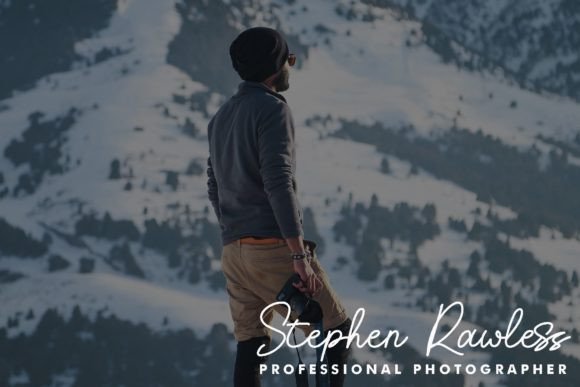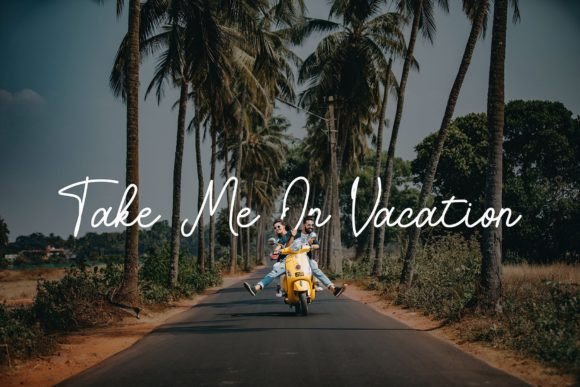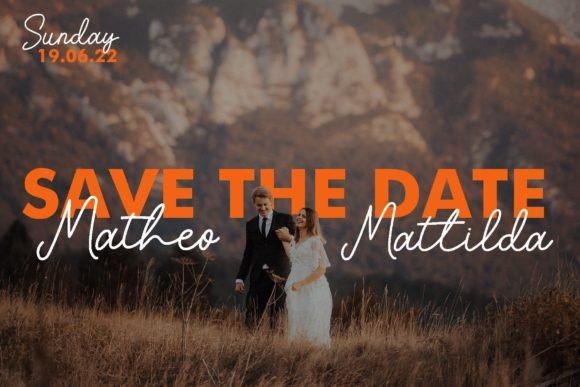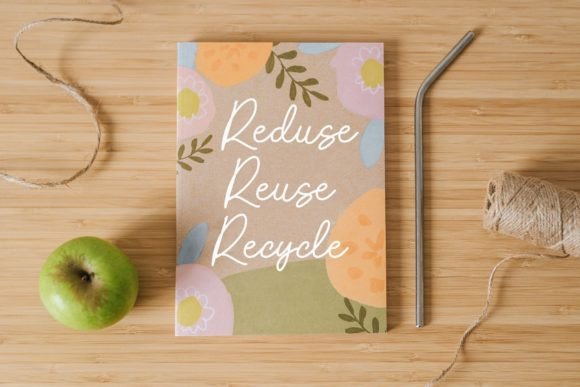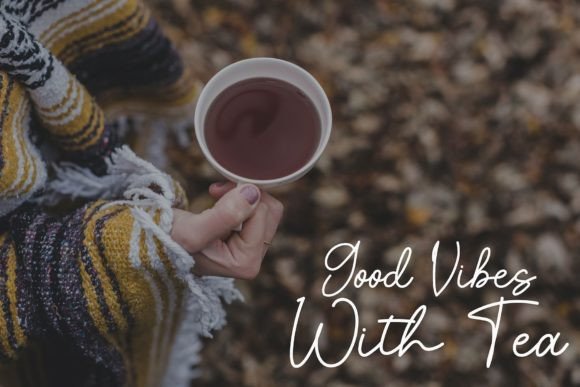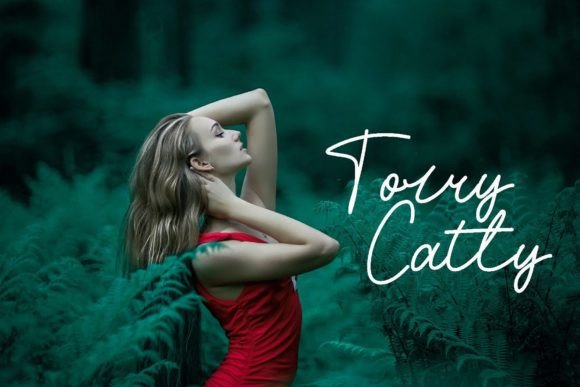
Introduction to Saint Roland Font
As a designer, there’s nothing quite like the rush of inspiration that comes when you stumble upon the perfect font for a creative project. The thrill of watching your ideas come to life, with every letter and line perfectly in place. It’s moments like these that make all the late nights and early mornings worth it. And today, we’re excited to introduce you to a game-changing design resource that’s sure to elevate your next project: the stunning Saint Roland Font.
With its modern and classy monoline handwritten style, the Saint Roland Font is the perfect addition to any design. Whether you’re working on branding projects, logos, wedding designs, or social media posts, this font is sure to bring a touch of elegance and sophistication to your work. And the best part? It’s available for free download, making it a valuable resource for designers of all levels.
Key Features of Saint Roland Font
- High-quality design resource with a unique, elegant style perfect for creative projects.
- Unique characteristics include a mix of modern and vintage elements, making it ideal for branding and packaging designs.
Honest Review: Saint Roland Font
I recently stumbled upon the Saint Roland Font, and I must say, it’s been a great addition to my design arsenal. This font is perfect for those looking to add a touch of elegance and sophistication to their creative project.
- High quality and crisp typography, making it ideal for various design applications
However, I do have a few caveats:
- ⚠️ Limited character set, which might be a concern for those who need a wide range of characters
- ⚠️ Not suitable for use as a body font, as it’s best suited for headlines and titles
Overall, I’m quite impressed with the Saint Roland Font. Its high quality and versatility make it a great design resource, especially for those looking to add a touch of sophistication to their creative project. With a little creativity, you can achieve some amazing results with this font.
For a high-quality design, use Saint Roland Font with a transparent background to create a clean and minimalist look. This font is ideal for creative projects, such as logo design, infographics, and social media graphics. You can also use it in presentations, reports, and documents to add a touch of elegance and sophistication.